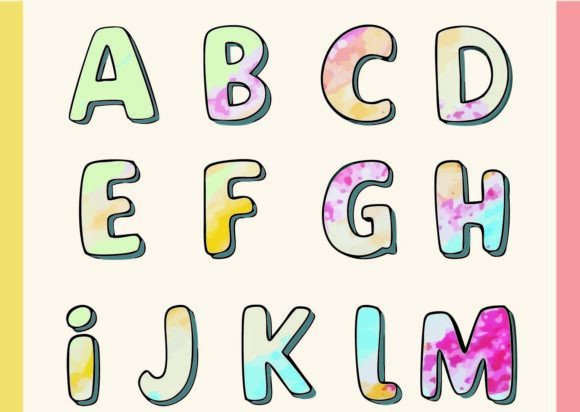
Introducing Josie Font: A Colorful Heaven of Typography
Are you tired of traditional fonts and looking for something that can add a pop of color to your designs? Look no further than the Josie Font, a chromatic font that is sure to take your typography to the next level. In this article, we’ll dive into the world of Josie Font, exploring its unique features, compatibility, and uses.
What is Josie Font?
Josie Font is a color font, also known as a chromatic font, that boasts a unique feature: every single glyph has a different set of colors. This means that each letter, number, or symbol in the font is a miniature masterpiece of color and design. The result is a visually stunning and complex typographic experience that is sure to capture the attention of your audience.
The Artistry of Josie Font
When you take a closer look at the glyphs in Josie Font, you’ll notice the intricate sets of paths and connections that make up each character. This level of detail is what sets Josie Font apart from traditional fonts and makes it a true work of art. Each glyph could be considered a typographic painting, with its own unique color palette and design.
The level of craftsmanship that has gone into creating Josie Font is evident in every aspect of the font. From the subtle nuances of color and shading to the intricate details of each glyph, Josie Font is a true masterpiece of typographic design.
Uses for Josie Font
Josie Font is a versatile font that can be used in a variety of design projects, from:
- Branding and logos
- Advertising and marketing materials
- Web design and development
- Print design and publishing
- Crafting and DIY projects
The font’s unique color and design make it perfect for projects that require a bold and eye-catching typographic statement.
Tips for Using Josie Font
To get the most out of Josie Font, here are a few tips to keep in mind:
- Experiment with different colors and backgrounds to find the perfect combination for your design.
- Use Josie Font to create eye-catching headlines and titles that grab attention.
- Mix and match Josie Font with other fonts to create a unique and visually interesting typographic experience.
- Don’t be afraid to get creative and try new things – Josie Font is a versatile font that can be used in a variety of innovative ways.
Josie Font is a game-changing color font that is sure to revolutionize the world of typography. With its unique and complex design, compatibility with popular design software, and versatility in use, Josie Font is a must-have for any designer looking to add a pop of color and creativity to their work.